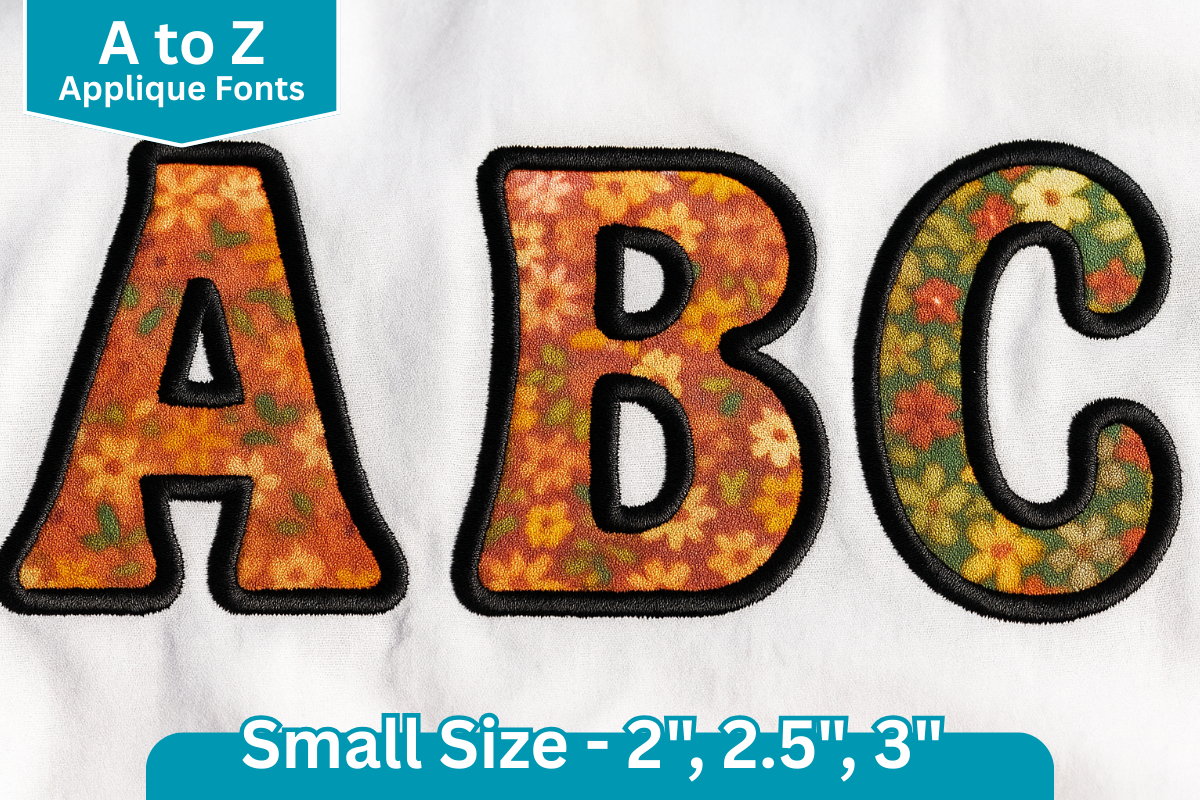
Jiggle Letters Applique Embroidery Font
This applique alphabet embroidery font includes all A–Z capital letters. Each letter is carefully digitized for clean stitching and comes in 3 sizes. Perfect for monograms, names, sportswear, kids’ projects, bags, and home décor items. Add a bold handmade touch to your embroidery projects with this versatile applique font set. The sizes and stitches information shown below is for “A” in each size. This is provided as a summary of what is available in this download file. For the full dimension details of the 78 letters in this set, click on the More Sewing Info (PDF) button on this page. This machine embroidery design comes with multiple embroidery file formats and can be used with multiple embroidery machines. This design is perfect for adding a charming and quirky touch to Halloween-themed clothing, trick-or-treat bags, or seasonal pillows.